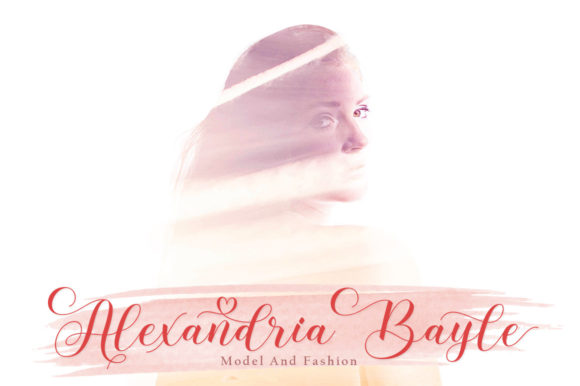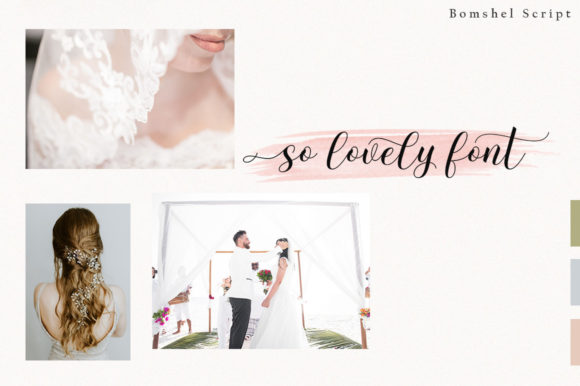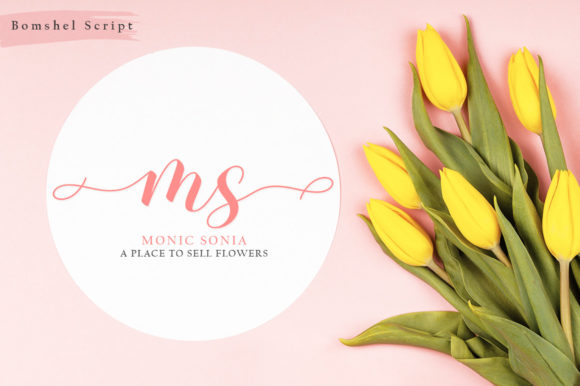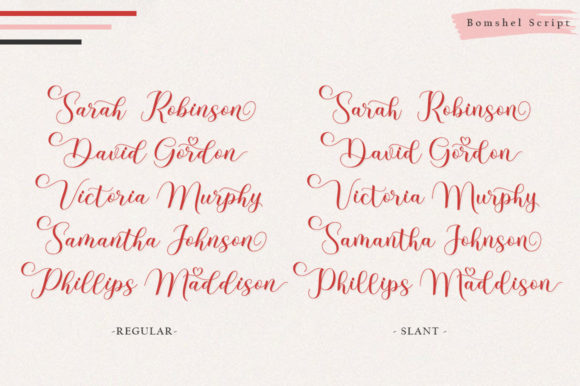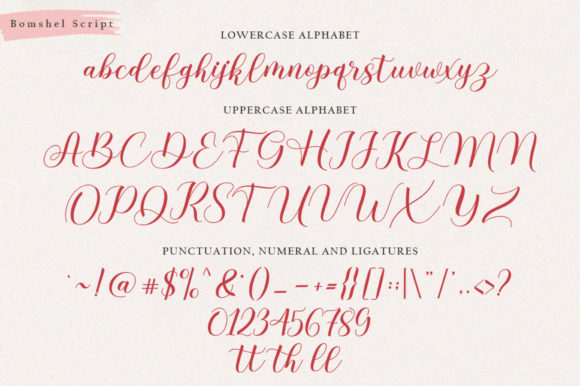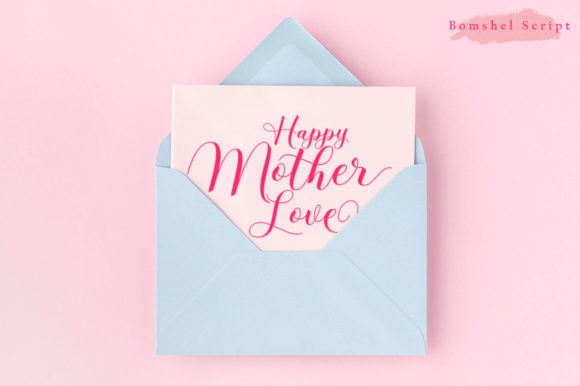
Bomshel Font: Elevate Your Designs with Romantic and Sweet Calligraphy
Are you looking for a font that can add a touch of luxury and romance to your design projects? Look no further than the Bomshel Font! This beautiful calligraphy typeface is perfect for designers and crafters who want to create stunning visuals that exude elegance and sophistication.
What is Bomshel Font?
Bomshel is a romantic and sweet calligraphy typeface that features characters that dance along the baseline. This unique design element gives the font a playful and whimsical feel, making it perfect for a variety of design projects, from wedding invitations and stationery to branding and packaging.
Key Features of Bomshel Font
- Romantic and Sweet Design: Bomshel Font features a romantic and sweet design that is perfect for creating elegant and sophisticated visuals.
- Luxury Spark: Bomshel Font is designed to add a luxury spark to any design project, making it perfect for high-end branding and marketing materials.
- Calligraphy Typeface: This font features a beautiful calligraphy design that is perfect for creating handwritten-style text.
Benefits of Using Bomshel Font
There are many benefits to using Bomshel Font in your design projects. Here are just a few:
- Elegant and Sophisticated: Bomshel Font is perfect for creating elegant and sophisticated visuals that exude luxury and refinement.
- Unique and Playful: The font’s unique design elements, such as the characters that dance along the baseline, give it a playful and whimsical feel.
- Versatile: This font is perfect for a variety of design projects, from wedding invitations and stationery to branding and packaging.
Who Can Benefit from Bomshel Font?
Bomshel Font is perfect for a variety of designers and crafters, including:
- Graphic Designers: Graphic designers can use Bomshel Font to create stunning visuals for their clients, from logos and branding materials to marketing materials and packaging.
- Stationery Designers: Stationery designers can use Bomshel Font to create beautiful and elegant stationery sets, including wedding invitations, greeting cards, and letterhead.
- Crafters: Crafters can use Bomshel Font to create beautiful and unique crafts, such as handmade cards, gift tags, and scrapbooking pages.
- Branding Experts: Branding experts can use Bomshel Font to create luxurious and sophisticated branding materials, including logos, business cards, and letterhead.
In conclusion, Bomshel Font is a beautiful and elegant calligraphy typeface that is perfect for designers and crafters who want to create stunning visuals. With its romantic and sweet design, PUA encoding, and luxury spark, this font is sure to elevate your designs to the next level. Whether you’re a graphic designer, stationery designer, crafter, or branding expert, Bomshel Font is a great choice for any design project.